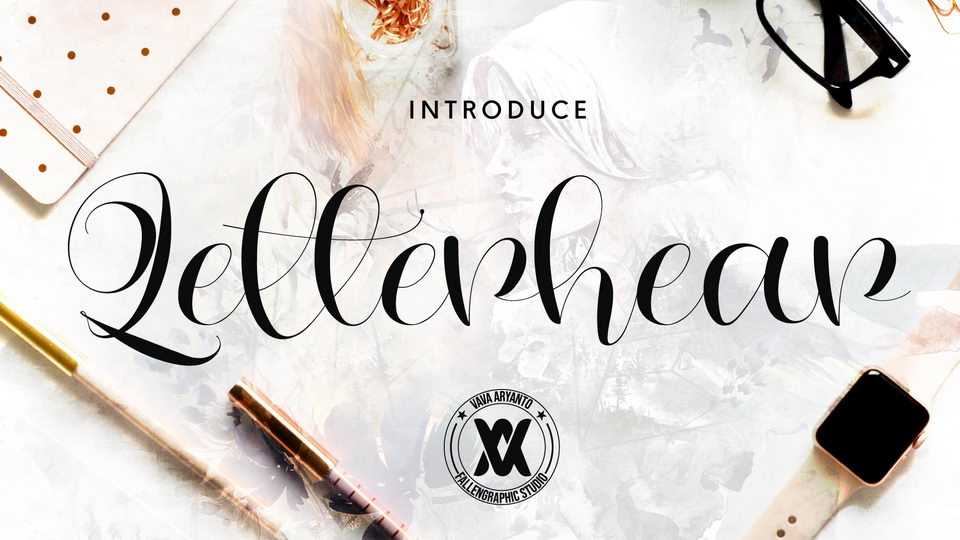
Download Letterhear font, modern script with a feminine calligraphy style and decorative characters. Letterhear font looks beautiful for logos, on invitations, greeting cards, branding, business cards, quotes, posters, wedding invitations and more.